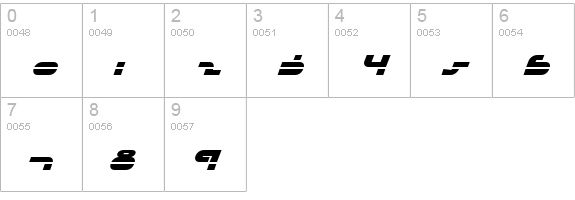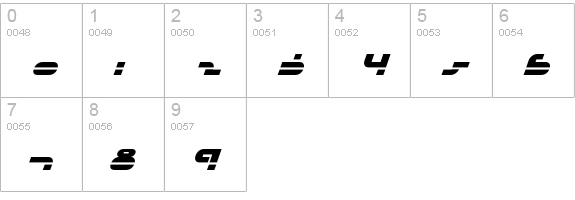
uni-sol laser italic Font Details
uni-sol laser italic is a distinctive, italic variant in the uni typeface family \xE2\x80\x94 well suited to design and typography projects.
Introducing Uni-Sol Laser Italic Font - a sleek and modern typeface that exudes sophistication and style. This unique font features sharp, futuristic lines that give your designs a cutting-edge look. Perfect for branding, advertising, and any project that requires a bold statement. What makes Uni-Sol Laser Italic Font even more appealing is that it is freely available to download at FontsMarket.com. Yes, you read that right - you can elevate your designs with this stunning font at no cost at all. Don't miss out on the opportunity to add a touch of elegance to your projects with Uni-Sol Laser Italic Font. Download it now and let your creativity shine!